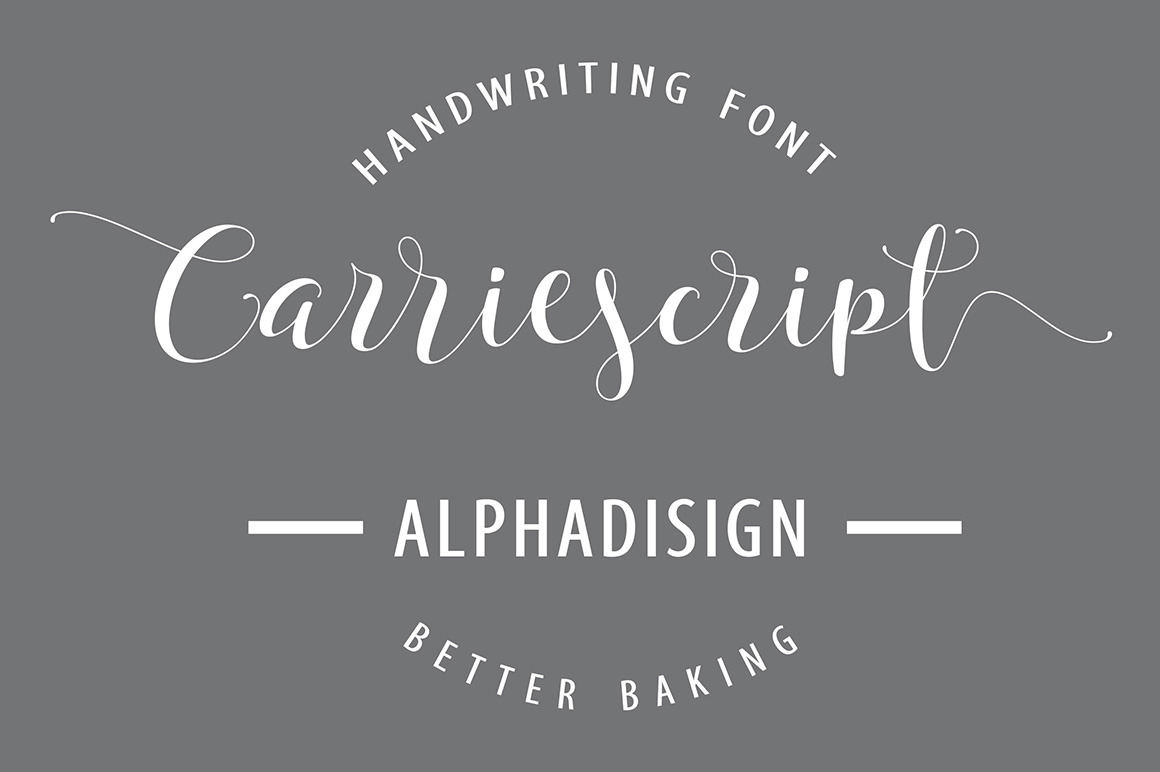
Carriescript Fonts Script+Extras+San
Carriescript includes script font, sans font, and some fancy extras, it can be used in advertisements, picture albums, posters, illustrations, etc Hope you like it, thank you.